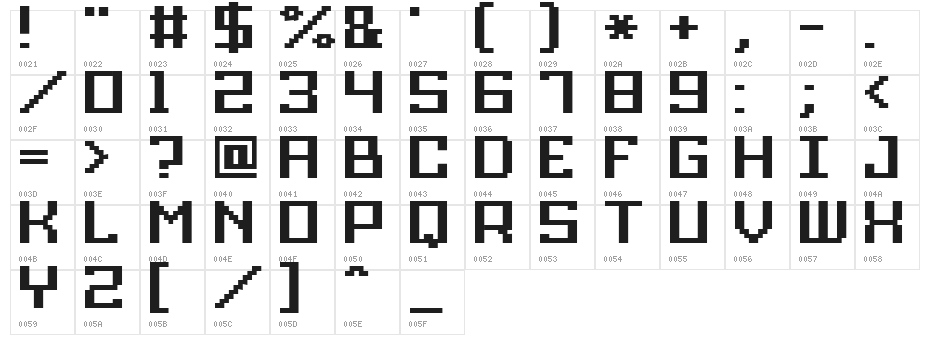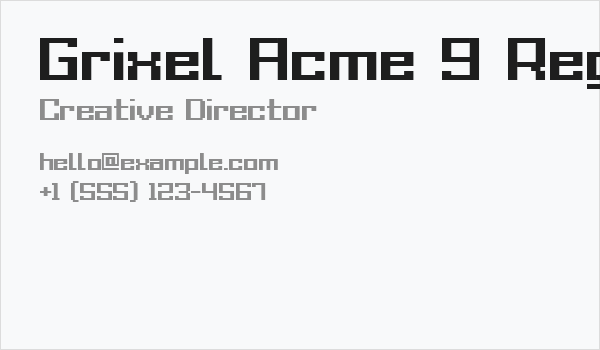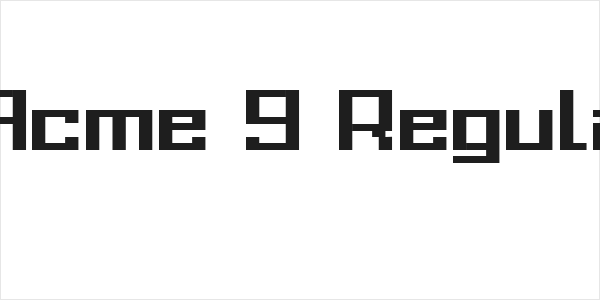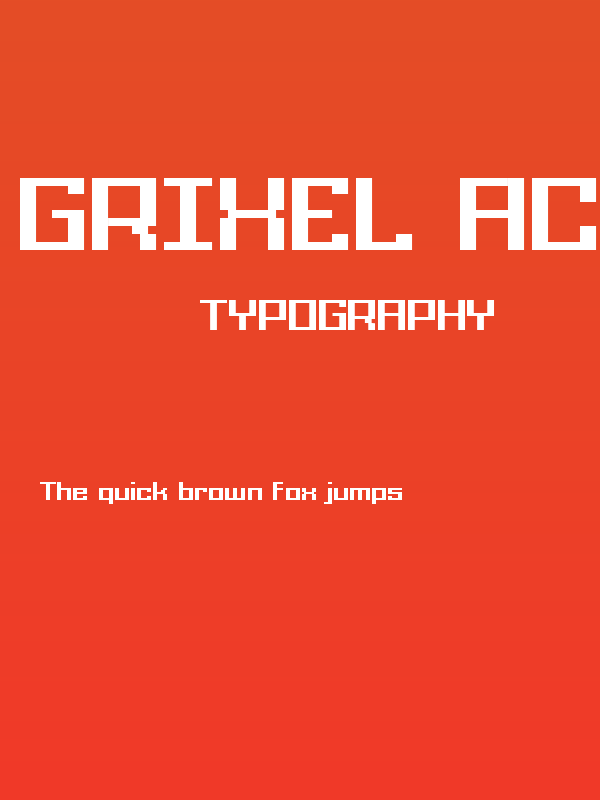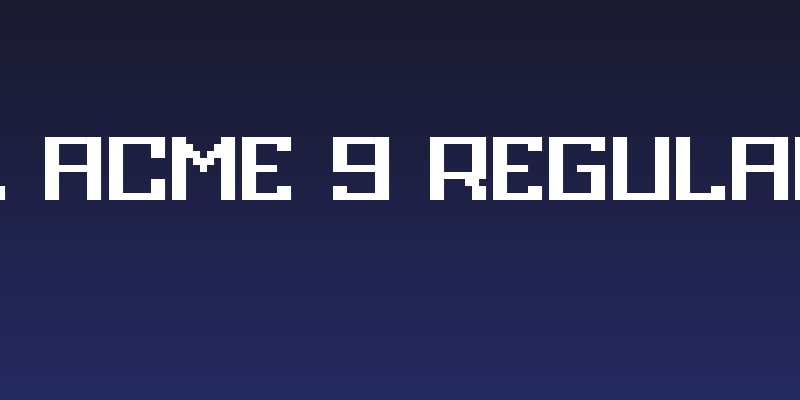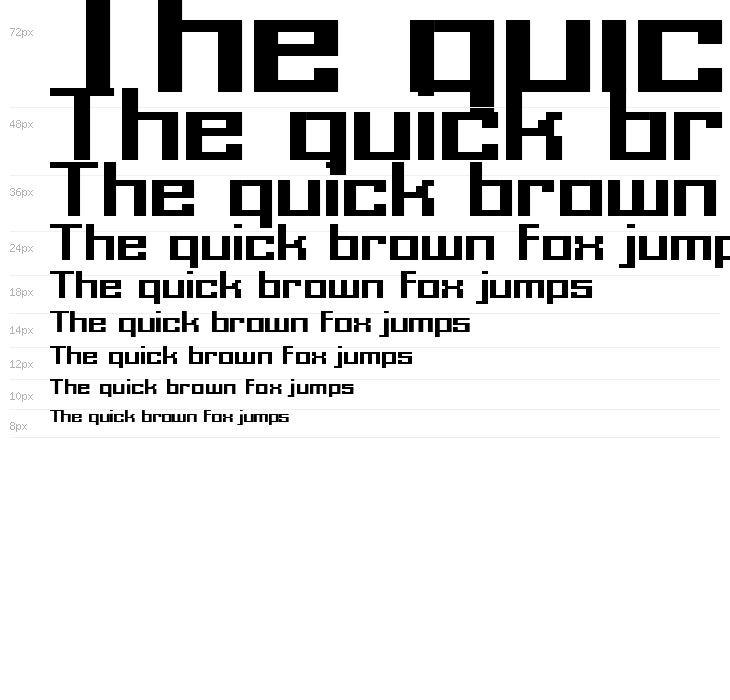
Grixel Acme 9 Regular Bold Font
Grixel Acme 9 Regular Bold Description
This font features a pixelated, blocky design reminiscent of early digital displays and retro video games. Each character is constructed with a uniform grid-like structure, giving it a distinctly digital and geometric appearance. The uppercase and lowercase letters maintain a consistent height, with sharp angles and straight lines dominating the design. Numbers and special characters follow the same pixelated style, ensuring visual consistency across all elements. The font's bold weight enhances its visibility, making it suitable for digital and retro-themed projects.
Overall StyleRetro, Digital
Use CaseHeadlines, Logos, Digital Art
Proposed ProjectsIdeal for retro video games, digital art projects, tech-themed designs, and any creative work that requires a nostalgic digital feel.